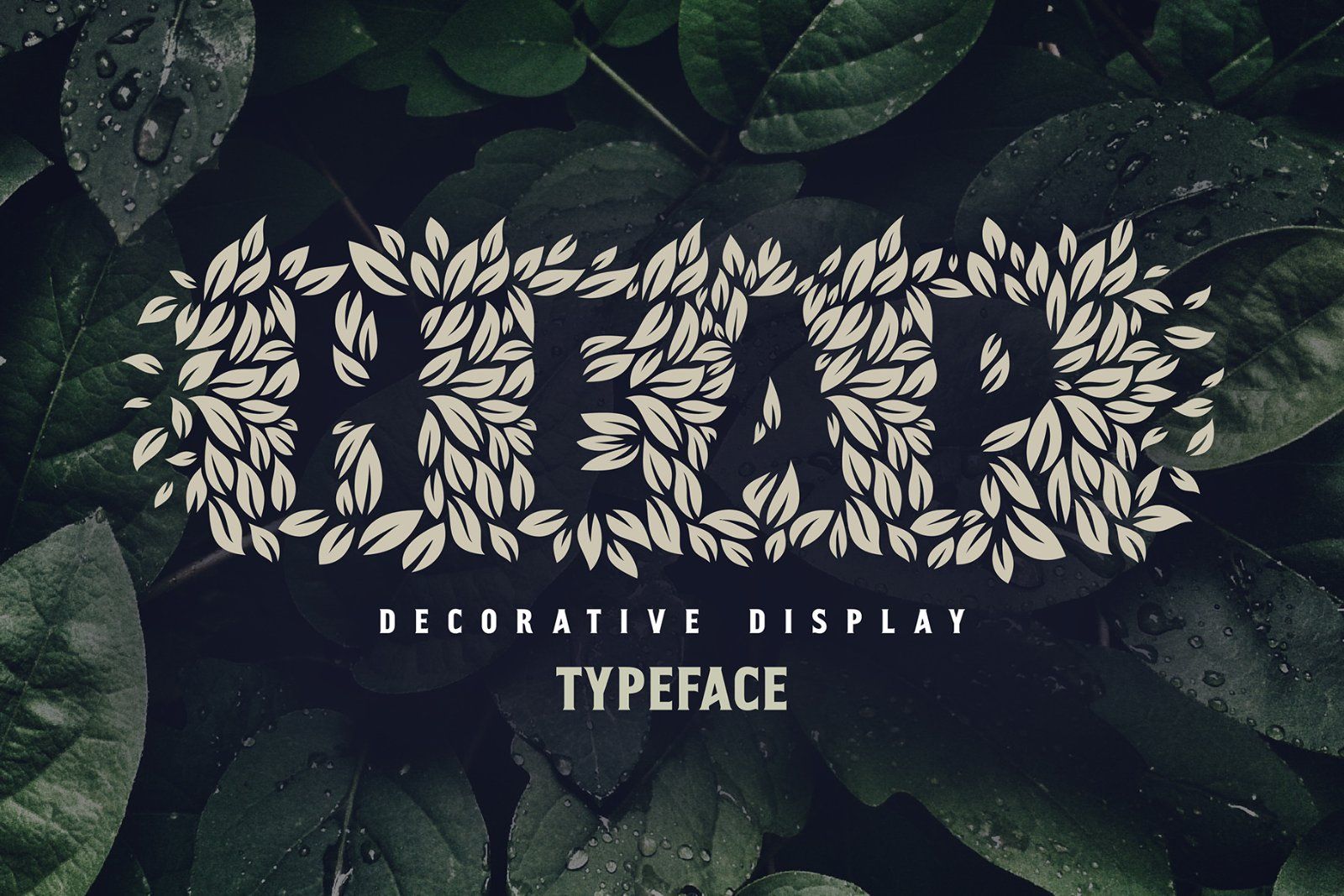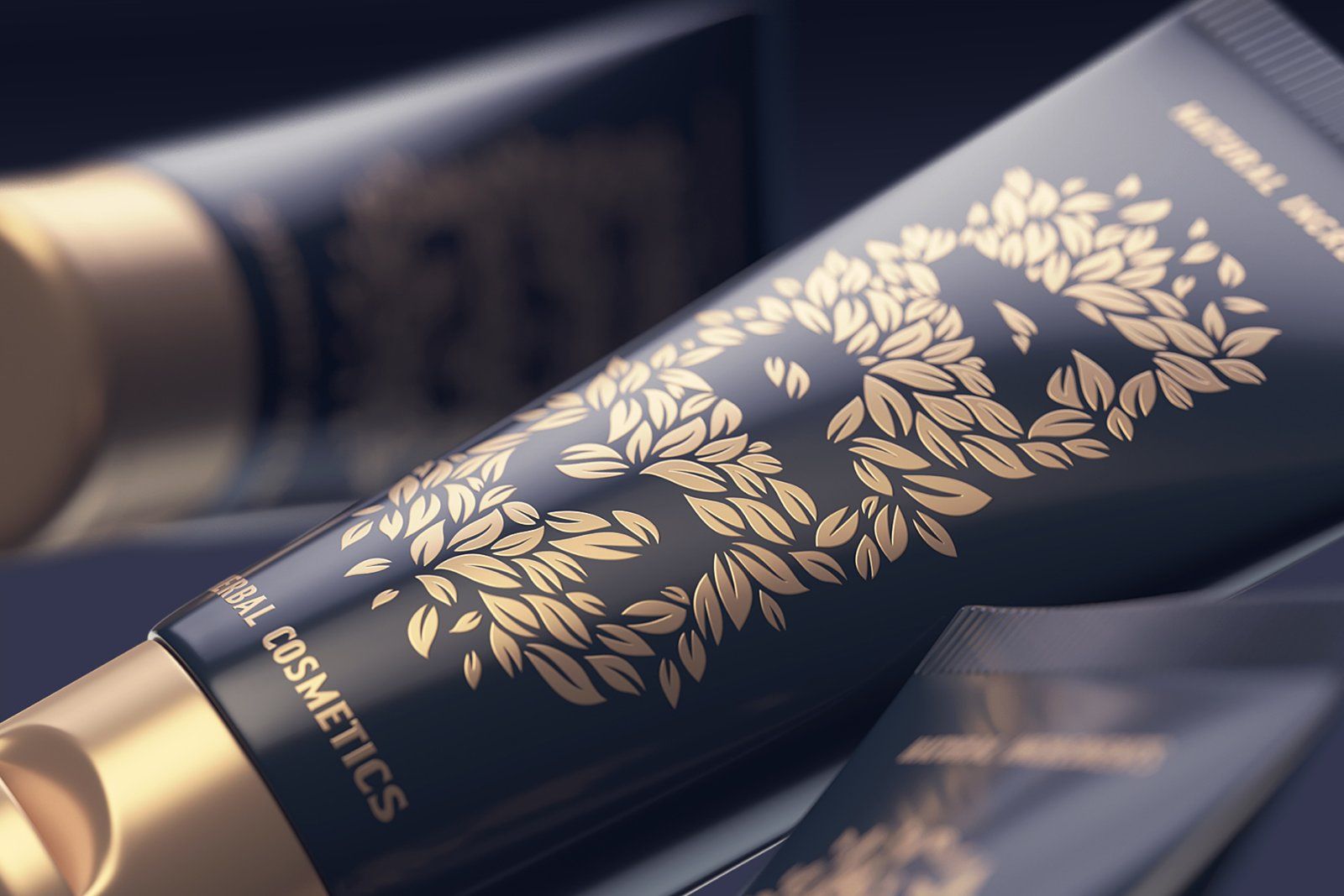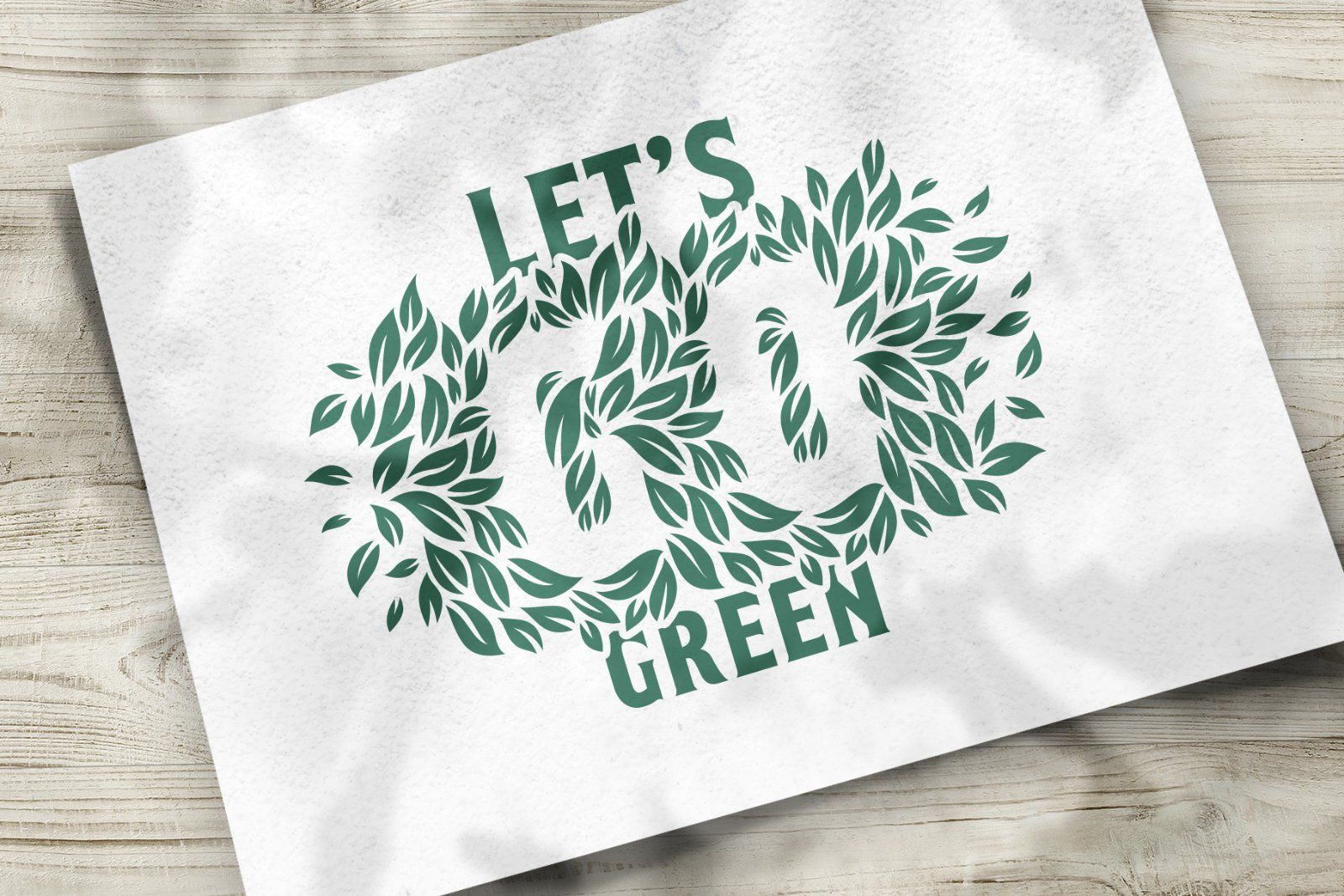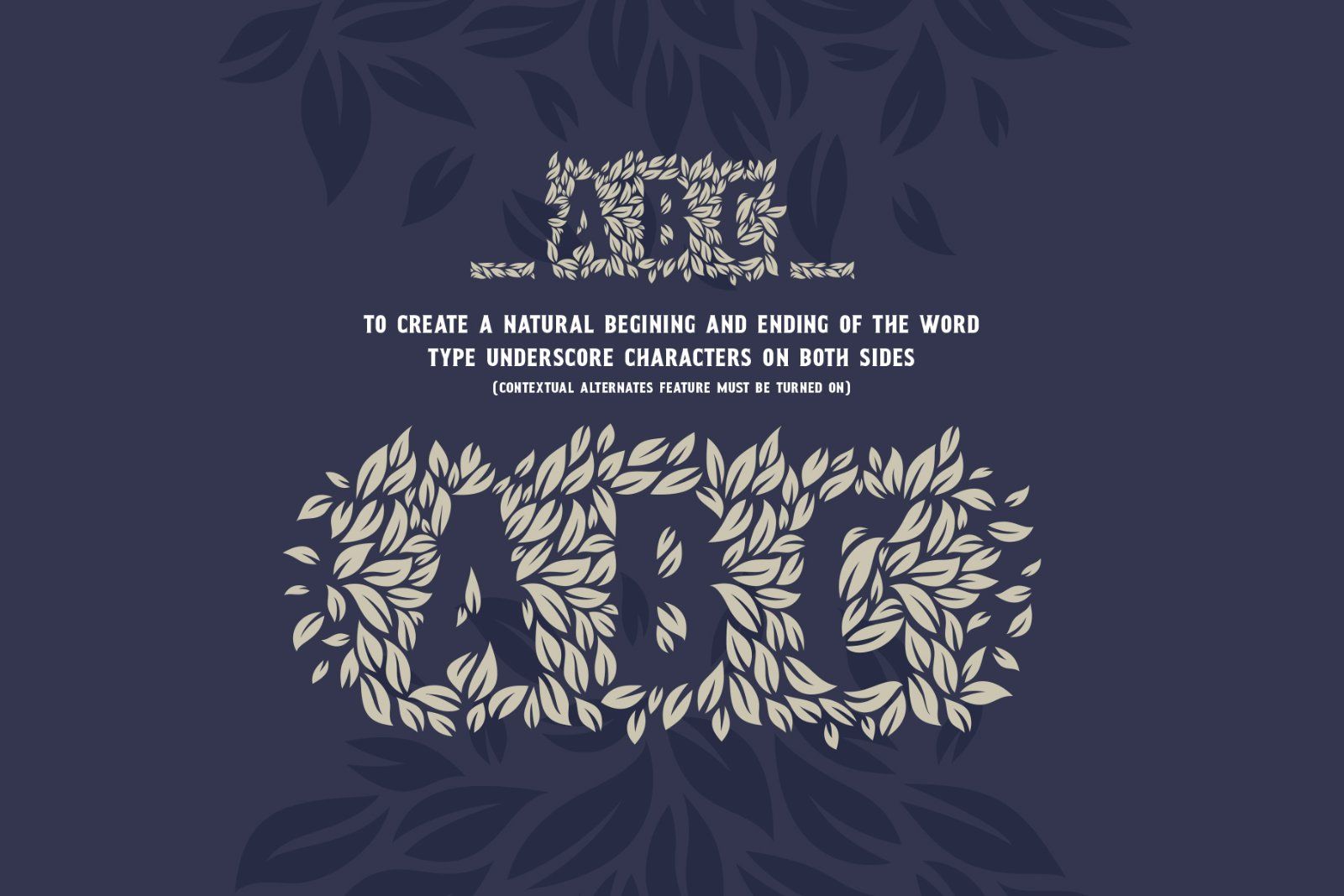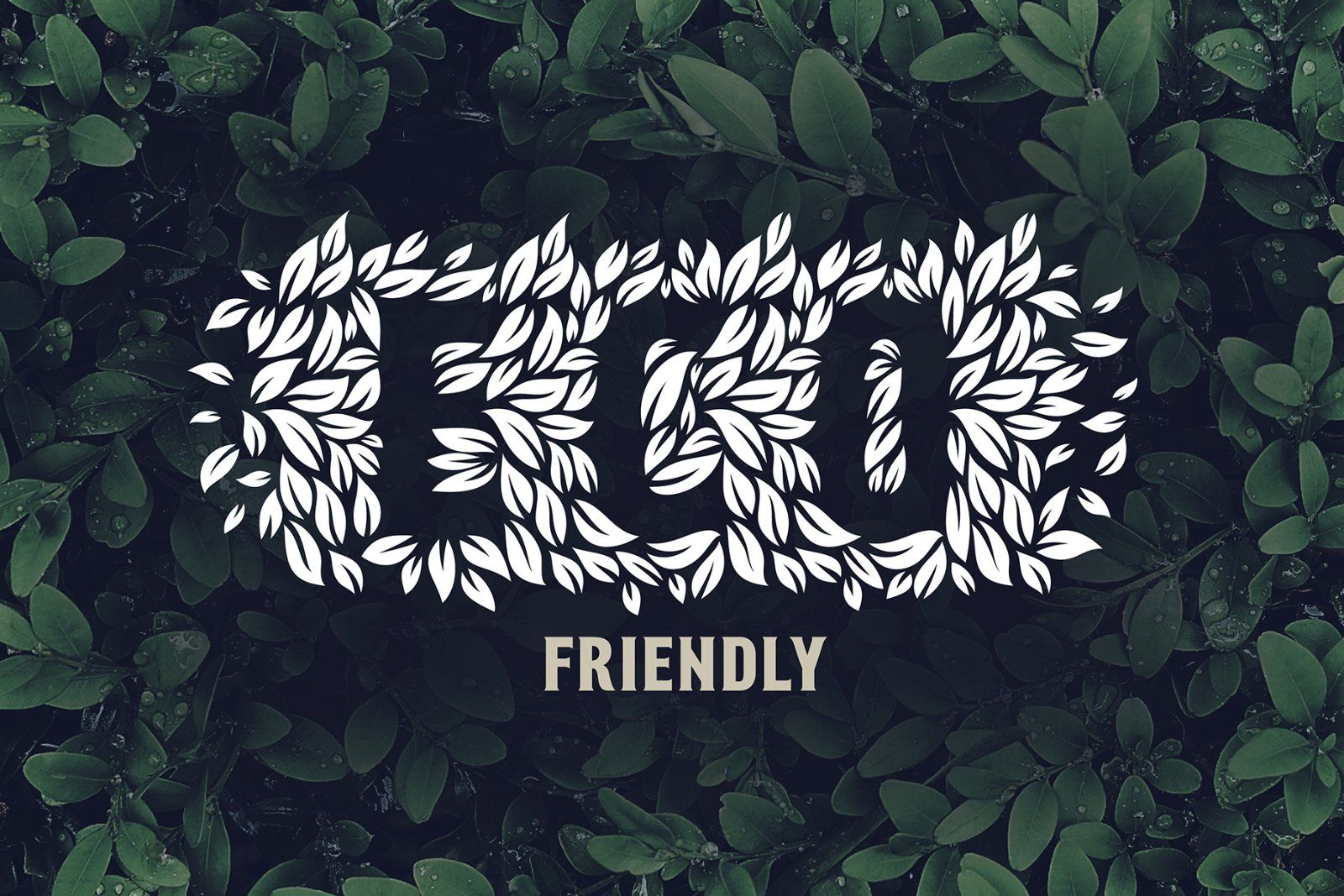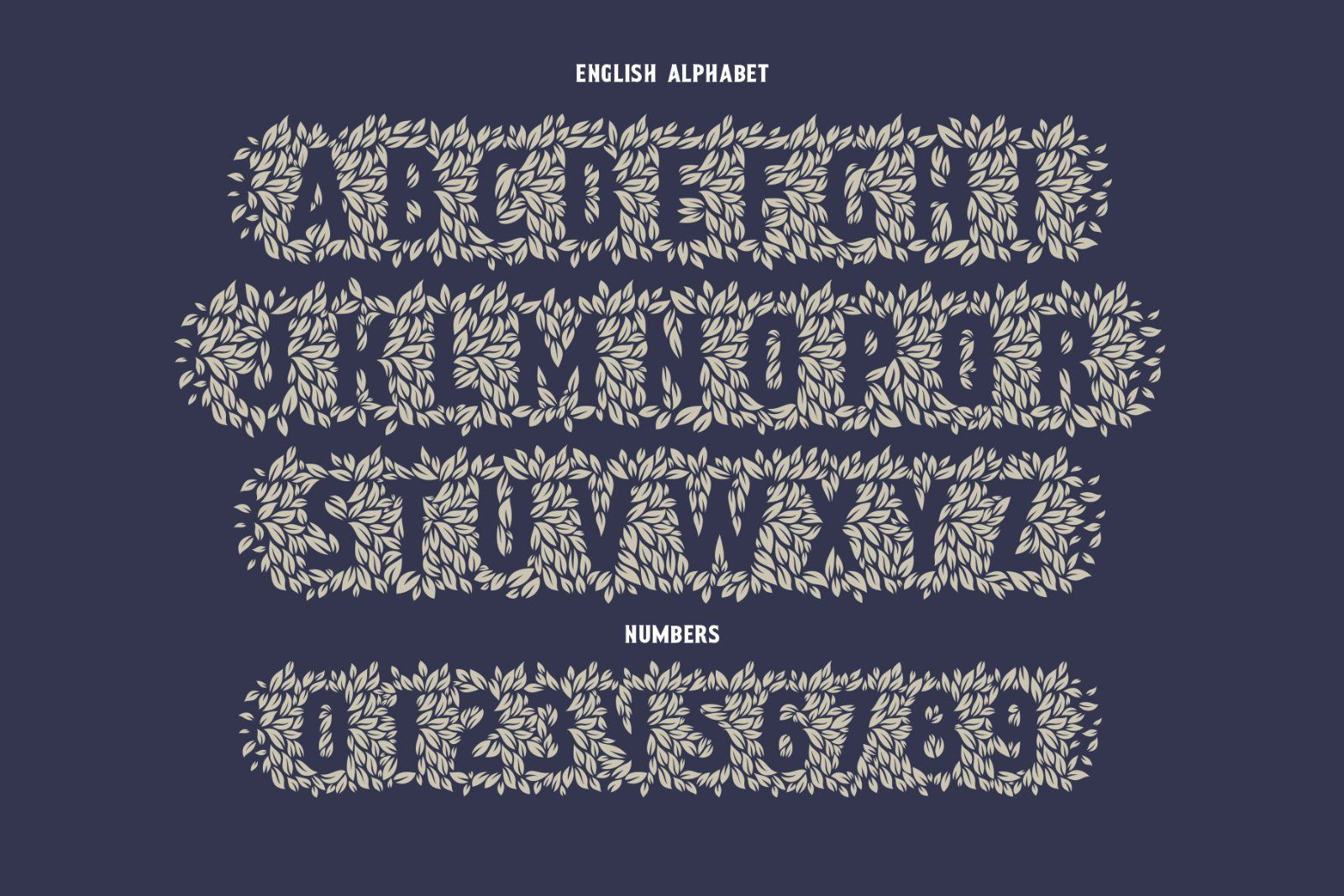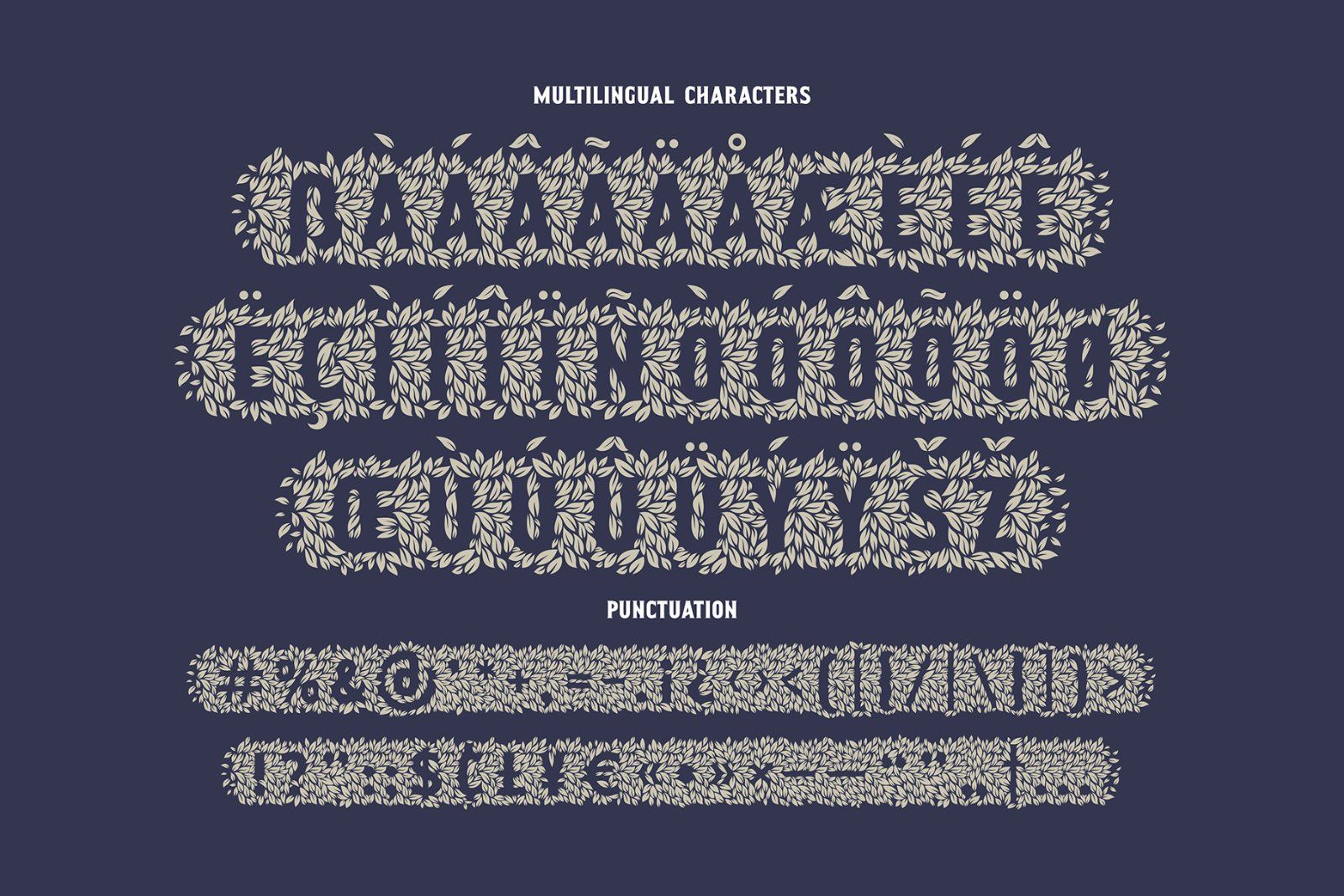
Hi, introducing a decorative font – Heap! It's a handcrafted typeface that consists of hundreds of leaves that are seamlessly combined in a flowing pattern. Heap font will perfectly fit for various label and logo designs. It's working better with short big words, when all the details are visible.
To create a natural beginning and ending of the word, type underscore characters on both sides (contextual alternates feature must be turned on). Heap font has a west European multilingual support, check out the screenshots with available characters.